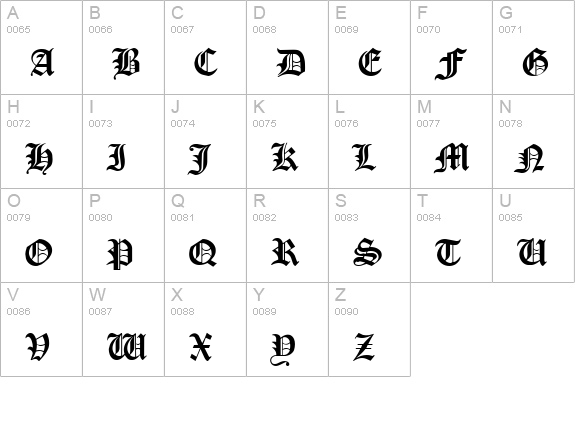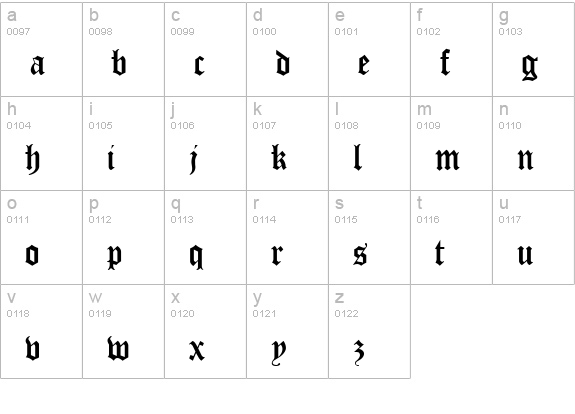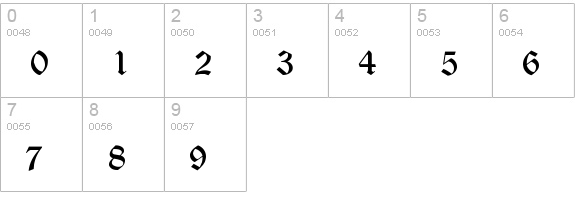
QTCloisteredMonk Regular is the standard, neutral variant in the QTCloisteredMonk typeface family \xE2\x80\x94 well suited to general body text, paragraphs, and standard typographic work.
QTCloisteredMonk Regular font is a timeless and elegant typeface that exudes a sense of serenity and tranquility. With its clean and balanced letterforms, this font captivates the essence of medieval manuscripts and the disciplined life of cloistered monks. The strong and sturdy strokes of QTCloisteredMonk Regular font carry a sense of authority and stability, making it perfect for projects that require a touch of tradition and sophistication. Whether it's designing invitations for a formal event or creating branding materials for a historical institution, this font will add a touch of class and elegance. One of the most appealing aspects of QTCloisteredMonk Regular font is that it is freely available to download at FontsMarket.com. This means that you can easily access and use this font for personal or commercial projects without any restrictions. The generosity of offering this font for free allows designers and enthusiasts to explore and experiment with its unique features, making it a valuable addition to any font collection. QTCloisteredMonk Regular font is versatile and adaptable, making it suitable for various design purposes. Its clean and legible characters make it easy to read, ensuring that your message is conveyed effectively. Whether you are designing a logo, creating a website, or working on a print project, this font's versatility will ensure that it can be seamlessly integrated into your design. With its timeless appeal and the freedom to download it for free, QTCloisteredMonk Regular font is a valuable asset for any designer or typographer. Its classic aesthetic and effortless readability make it a go-to choice for projects that require a touch of elegance and sophistication. So why wait? Head over to FontsMarket.com and download QTCloisteredMonk Regular font today to add a touch of timeless beauty to your designs.